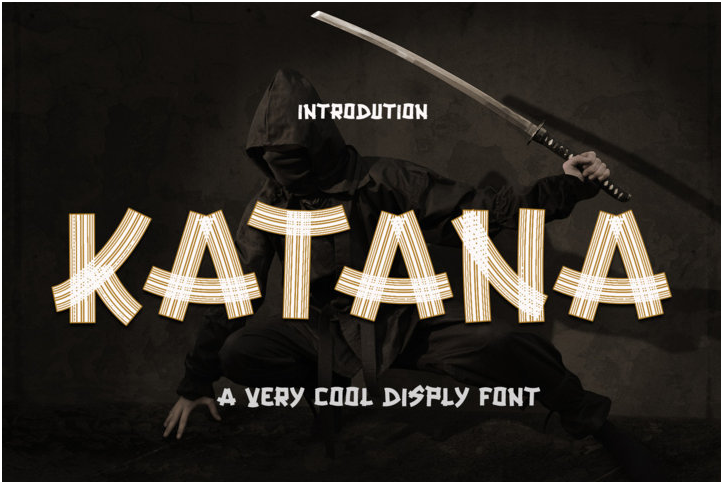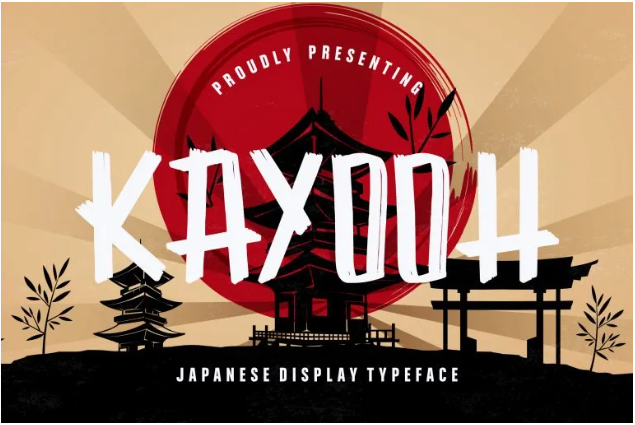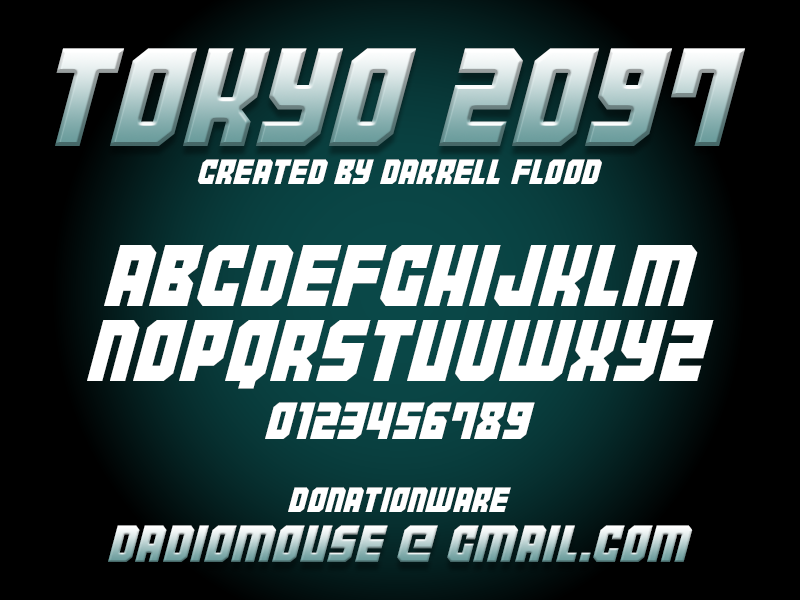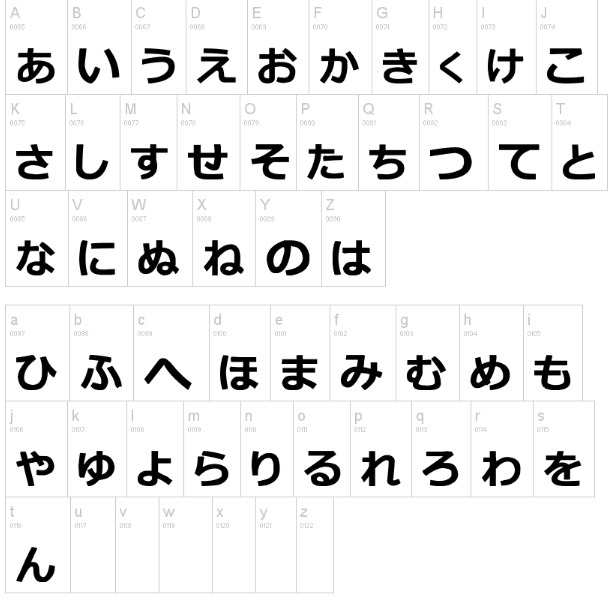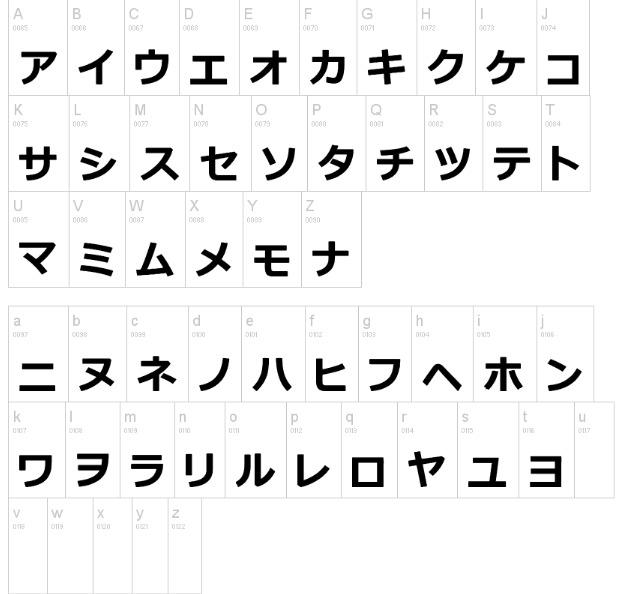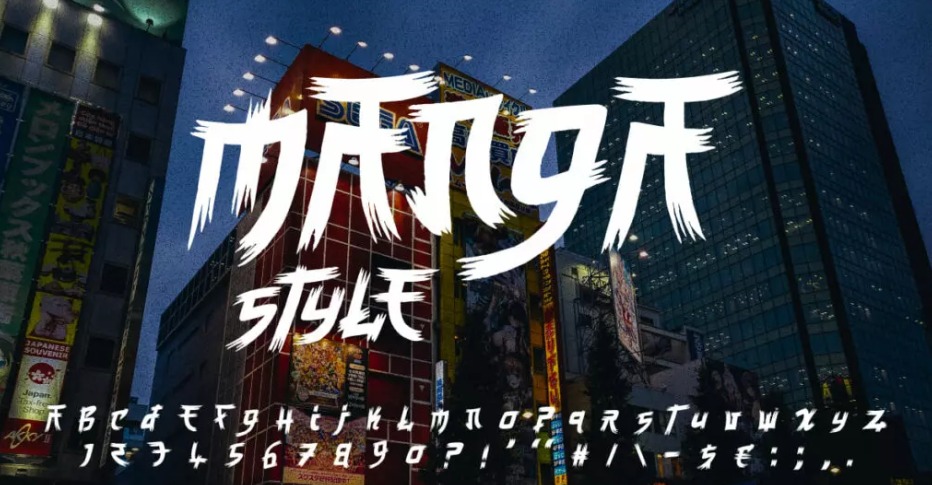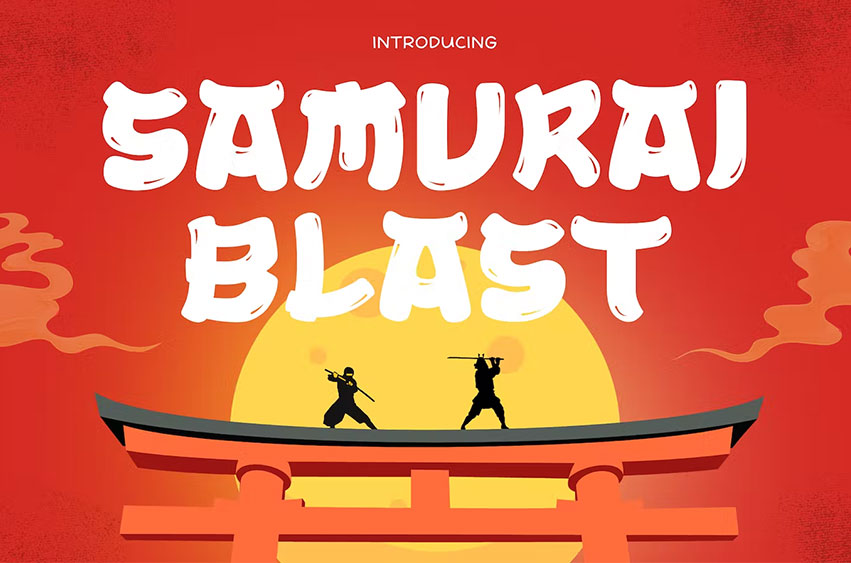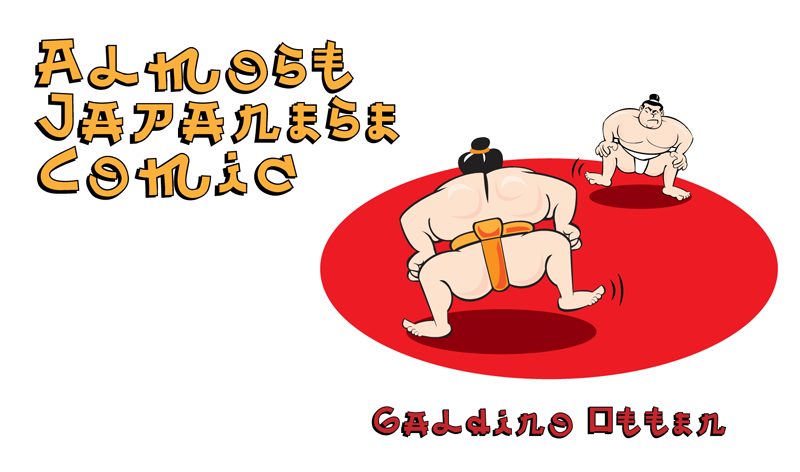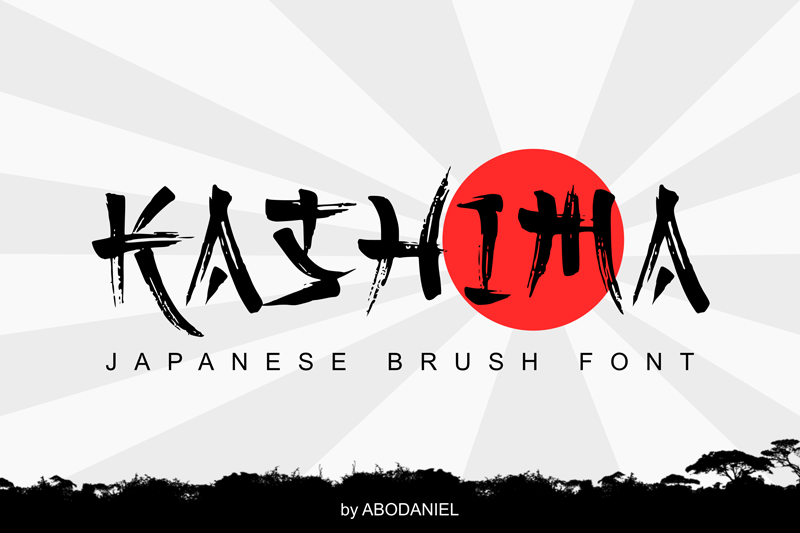
Japanese Font: 15 Fonts to Japanified Your Projects
With its unique blend of artistic expression and functional design, Japanese font highlights the distinct essence of Japanese culture and language. Whether traditional calligraphy or digital typefaces, you can tell a Japanese font style. Let’s get cultured with these beautiful fonts!
The 15 Finest Japanese Font
Japanese-style fonts typically use brushes, and the style can be traced back to ancient times when scribes and calligraphers created characters on scrolls. The traditional calligraphy called “shodō”, laid the foundation for the developing font styles. Review fonts with a Japanese touch on them by Creatype Studio below!
1. Kattana
Kattana Japanese Typeface
We present to you the Kattana. With a name that blatant, you know this font is firm, beautiful, and doubtless. It is rich with ornament and Kattana is uppercase only, leaving the lowercase spot filled with another selection of ornaments.
2. Kayooh
Kayooh Japanese Font
Kayooh presents itself with a more blocky style. This display typeface still affixes the original brush style but with a modern look. It is a bold and fun font with a touch of Japanese calligraphy.
3. Harajuku
Harajuku Japanese Style Typeface
Aside from the style, Harajuku also mimics the Japanese writing too. Making it more Japanese than just the style. Harajuku prefers a modern writing style, ditching the brush edges and using rounded edges for the serifs.
4. Old Japanese
old_japanese font
As the name suggests, Old Japanese is the font you regularly see in old Japanese movies. With just a glance, you can recognize the font from your nostalgic memories. It’s the perfect font to complement your vintage-themed campaigns.
5. Kamikaze
Kamikaze Font from Dafont
Kamikaze is a Japanese font in a robotic style. It has four selections to choose from, the original, italic, gradient, and gradient-italic. This font has bold strokes and weight which makes its presence even more solid and remarkable.  Use it in your next action-packed design project!
6. Almost Japanese Comic
almost japanese comic font
Almost Japanese Comic font has an eccentric appearance. It has the Japanese imbued alphabet and the Japanese alphabet (Hiragana and Katakana) mixed into one. Its eccentricity states that how they “should” sound does not really matter. If it looks like an alphabet, just put it in.
Hence, it is an ideal choice for experimental display design.
7. Manga Style
Manga Style Font
If you need a dreadful font, try Manga Style typeface! It captures the long brush style with a patchy end, that creates a longing and eerie feeling. Thus, this one should pep out your thematic poster design!
8. Tokyo 2097
Tokyo 2097 Display Typeface
A futuristic collection for your Japanese font is Tokyo 2097. It is a blocky bold and italic font, highlighting a speedy action behind each letter.
9. Osaka Sans Serif
Osaka Sans Serif Font
Taking a trip around Japan to Osaka Sans Serif! This font also has a blocky display typeface in a slanted style. Not just Japanese-themed, it is a versatile and fun font to combine with any design project with good legibility.
10. Tokyo Soft
tokyosoft font
If you want people to read your message properly, use Tokyo Soft futuristic font! This one is a stylish font with otherworldly levels of futurism. Taste a hint of futuristic Japanese font with Tokyo Soft now!
11. Katana
Katana Display Font
Katana font really highlights the form of a sword which is usually associated with Samurai from Japan. The font looks like a sheathed katana, with a clean cut on the end. It is an all-uppercase font pack with two slightly different styles of each letter, providing a possibility for excellent styling.
12. Kashima Brush
japanese font kashima brush
One of the most unique Japanese fonts is Kashima Brush. It highlights every stroke when brush is made, incorporating all the thick and thin forms simultaneously. The contrast of its letterform becomes the ornamental element without many ornate details.
13. Samurai Blast
japanese font samurai blast font
Samurai Blast font has a flowy looks through its wavy lines. You can imagine the zig-zag and the speed of the sword of a Samurai in this font. Yet, this font presents more side of fun rather than mystery. You can use this font for designs related to children’s thematic in Japanese styling.
14. Japanese Emperor
Japanese Emperor Japan Style Display Font